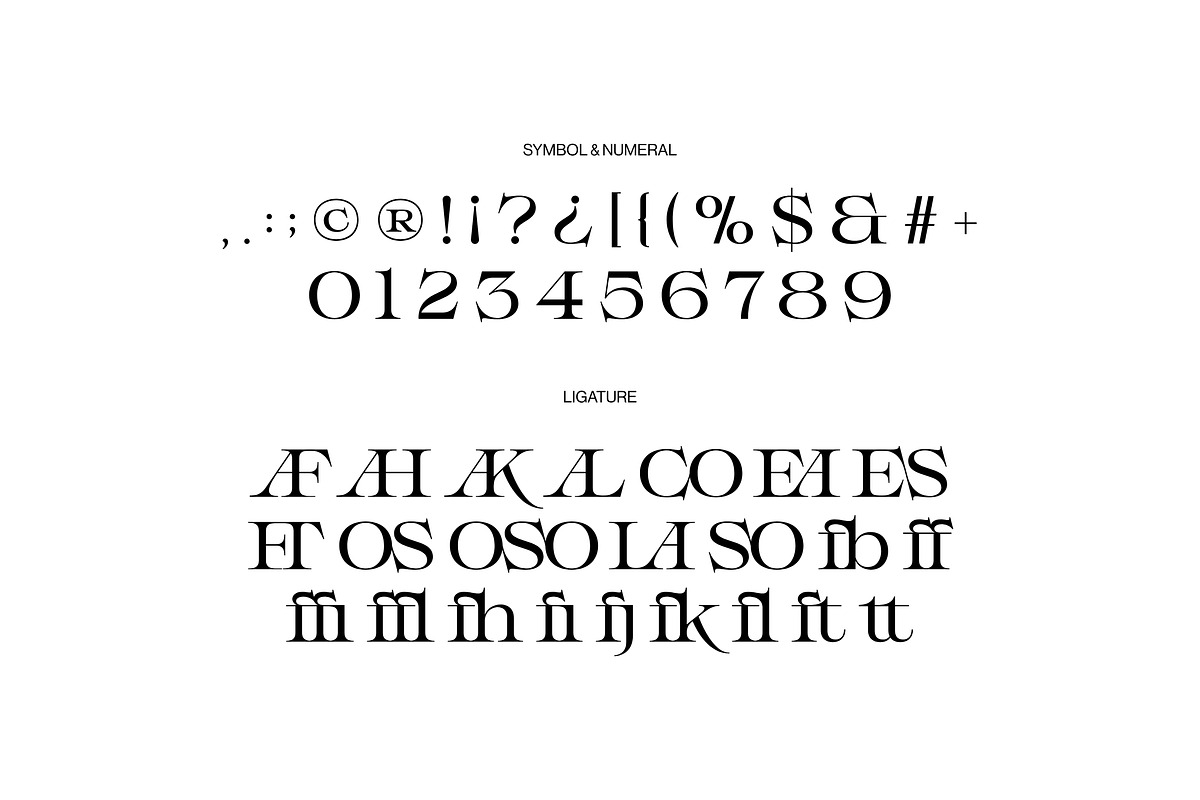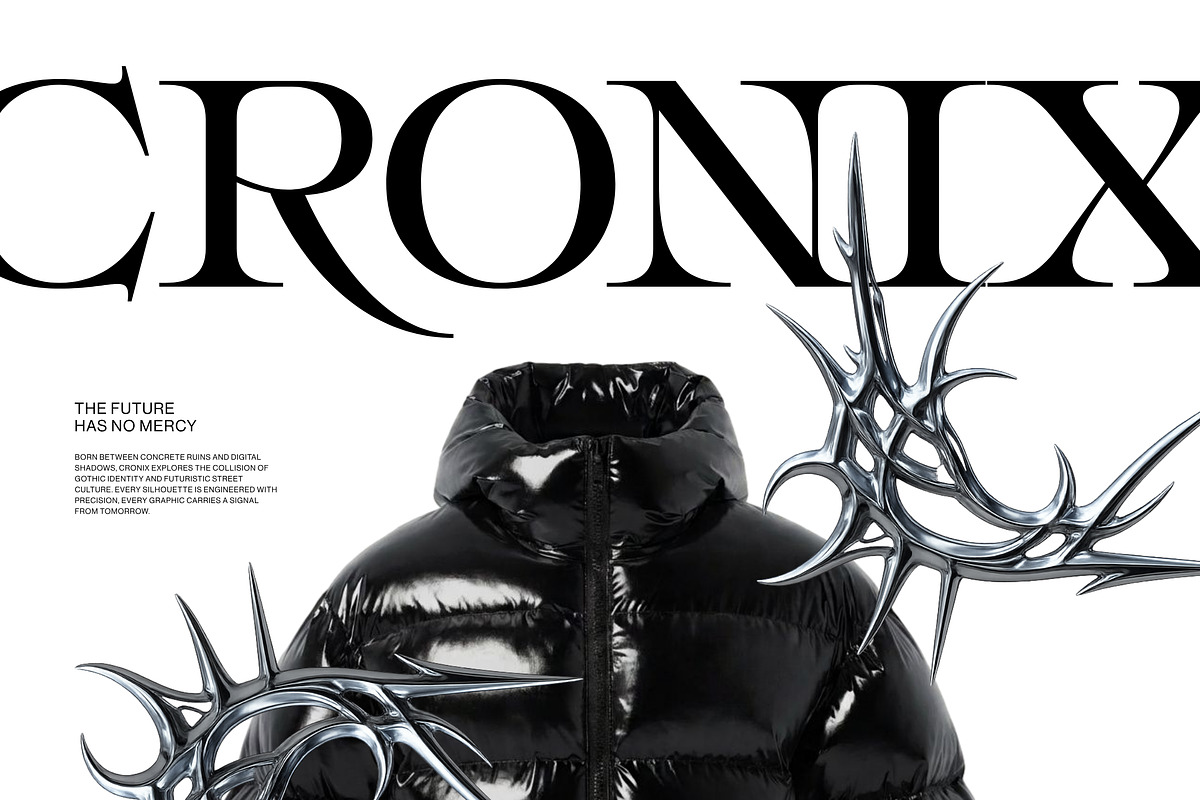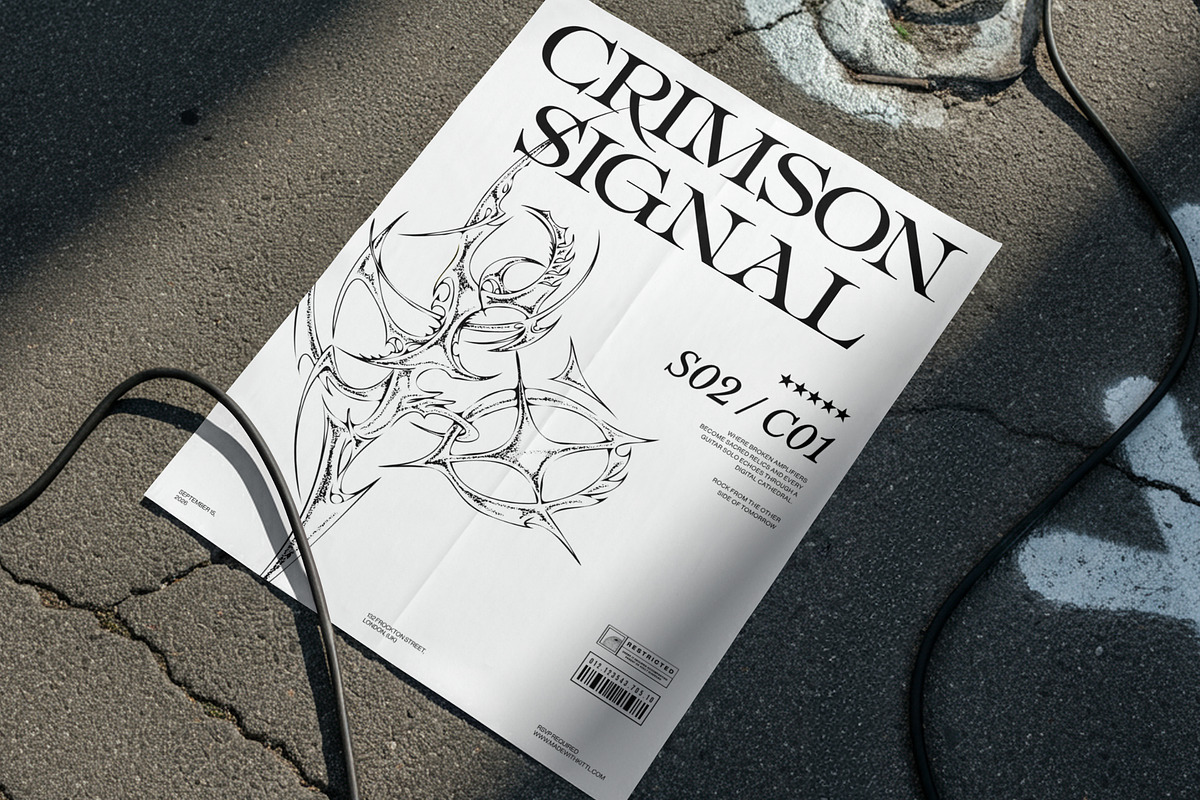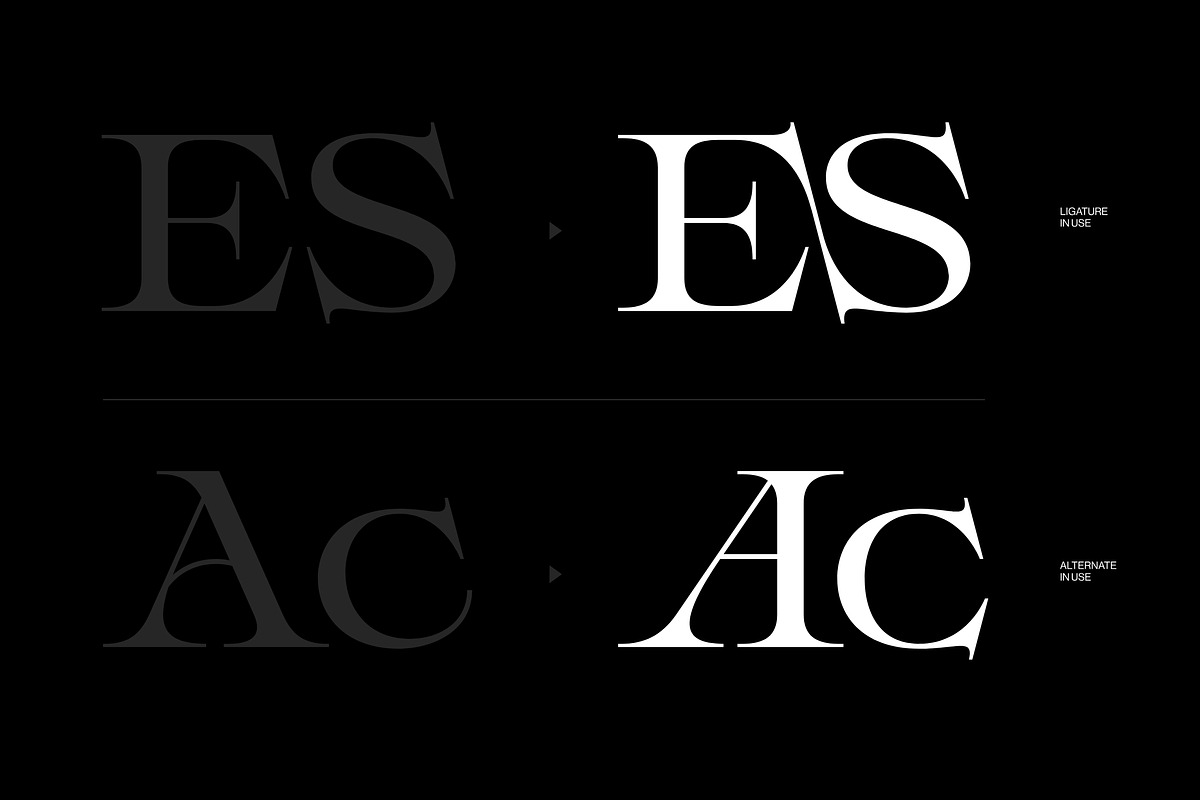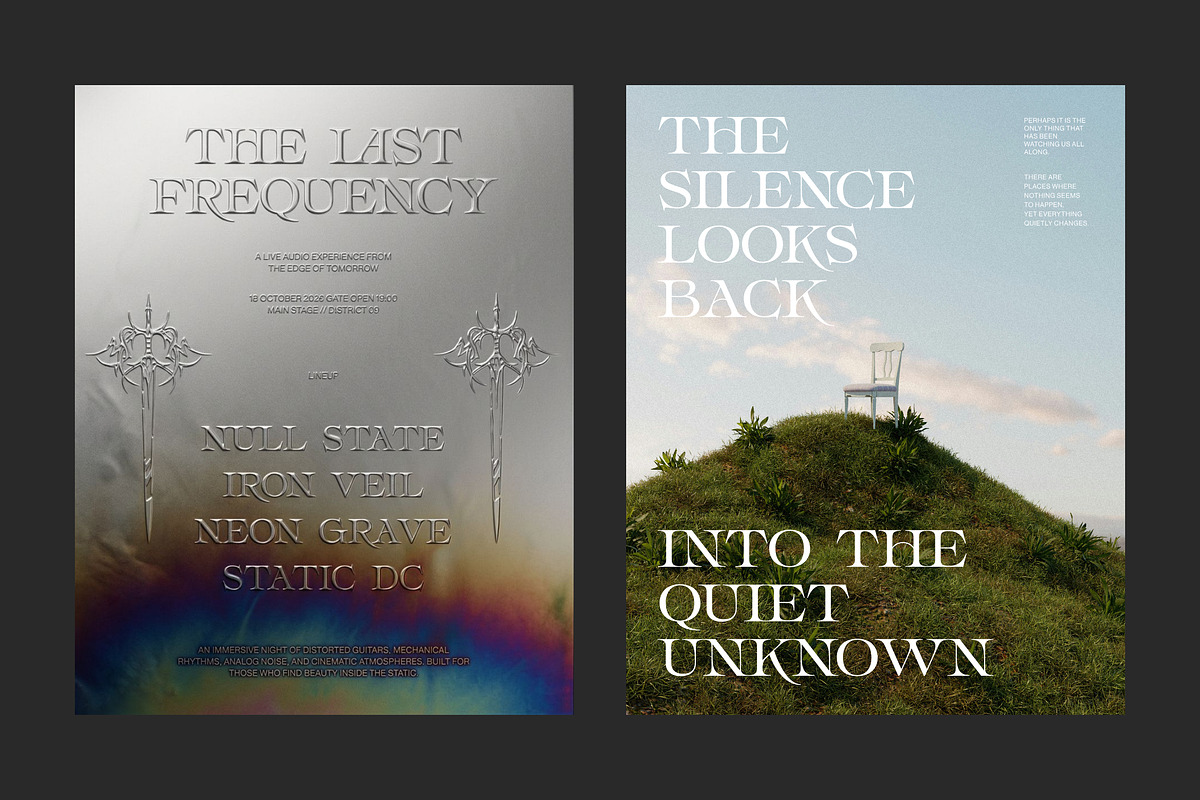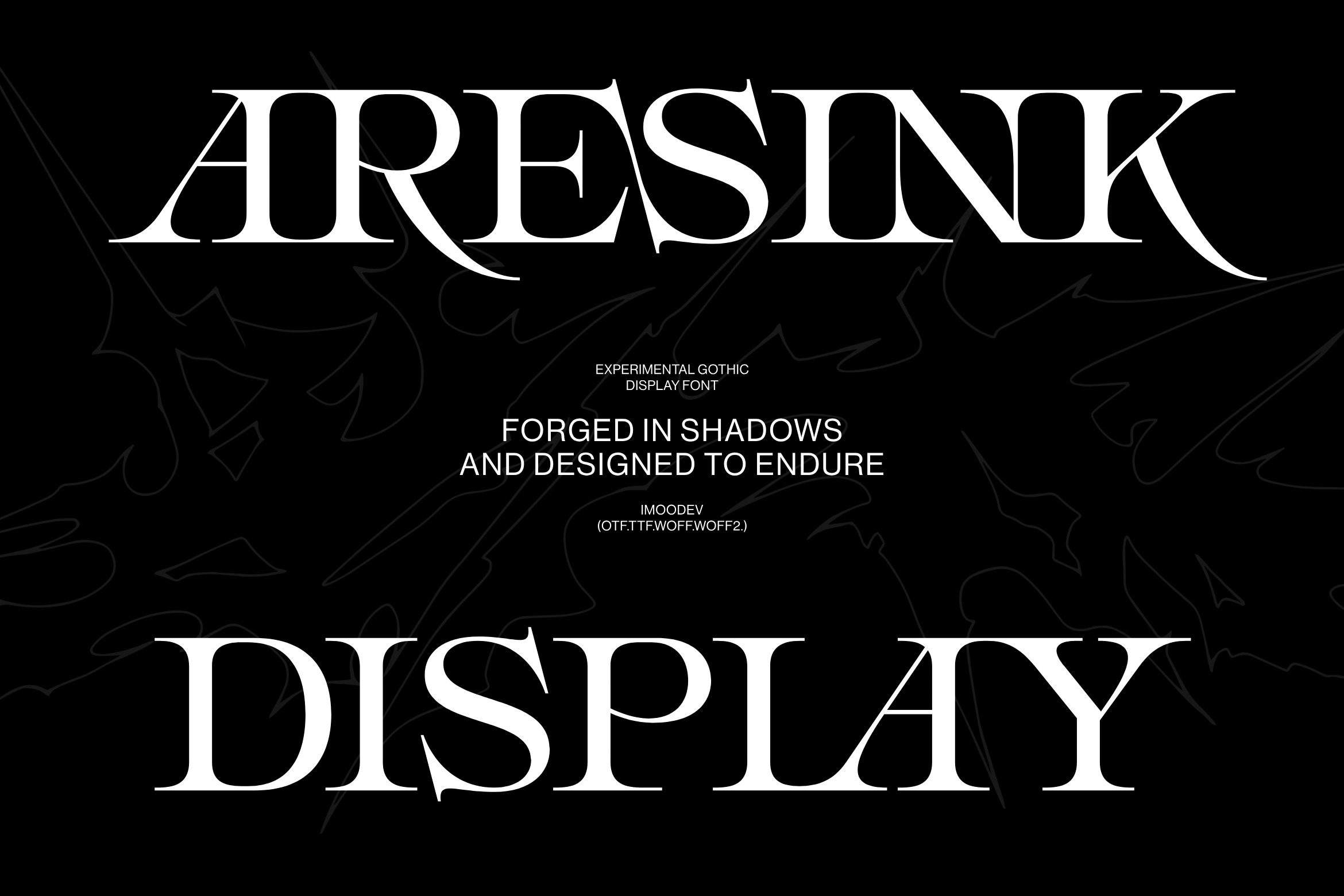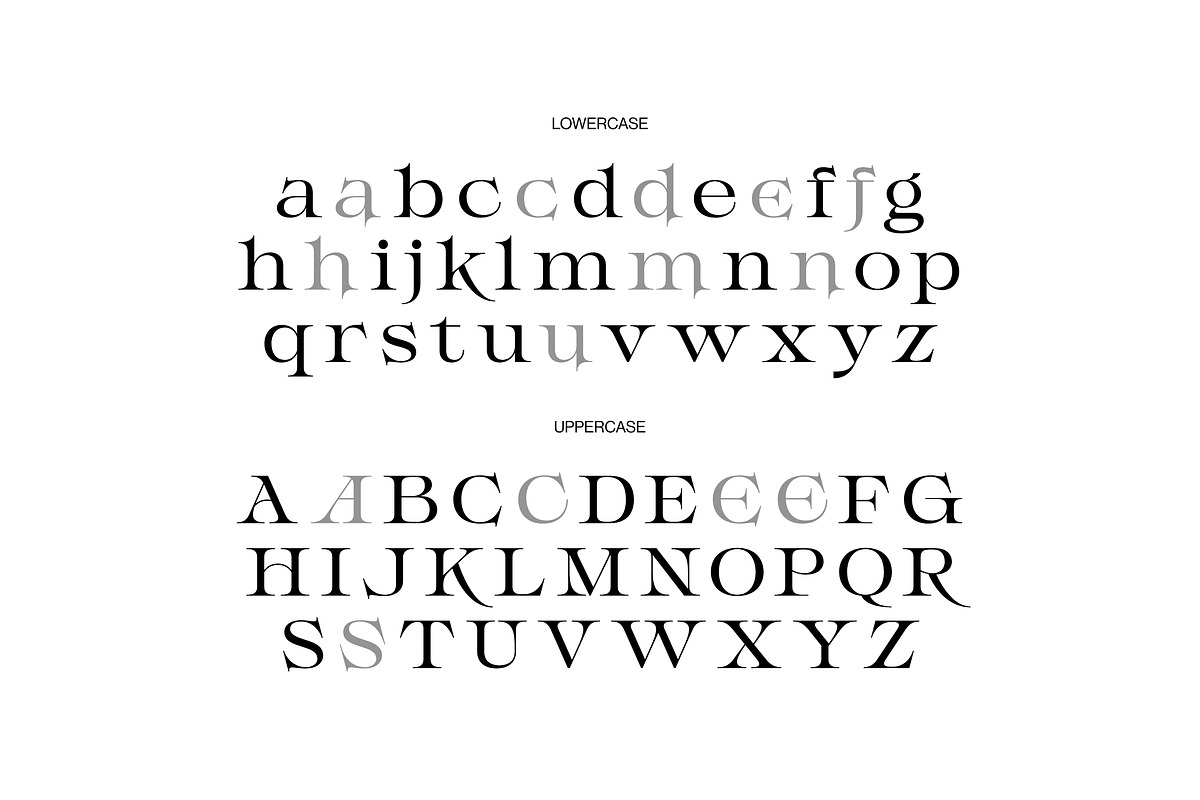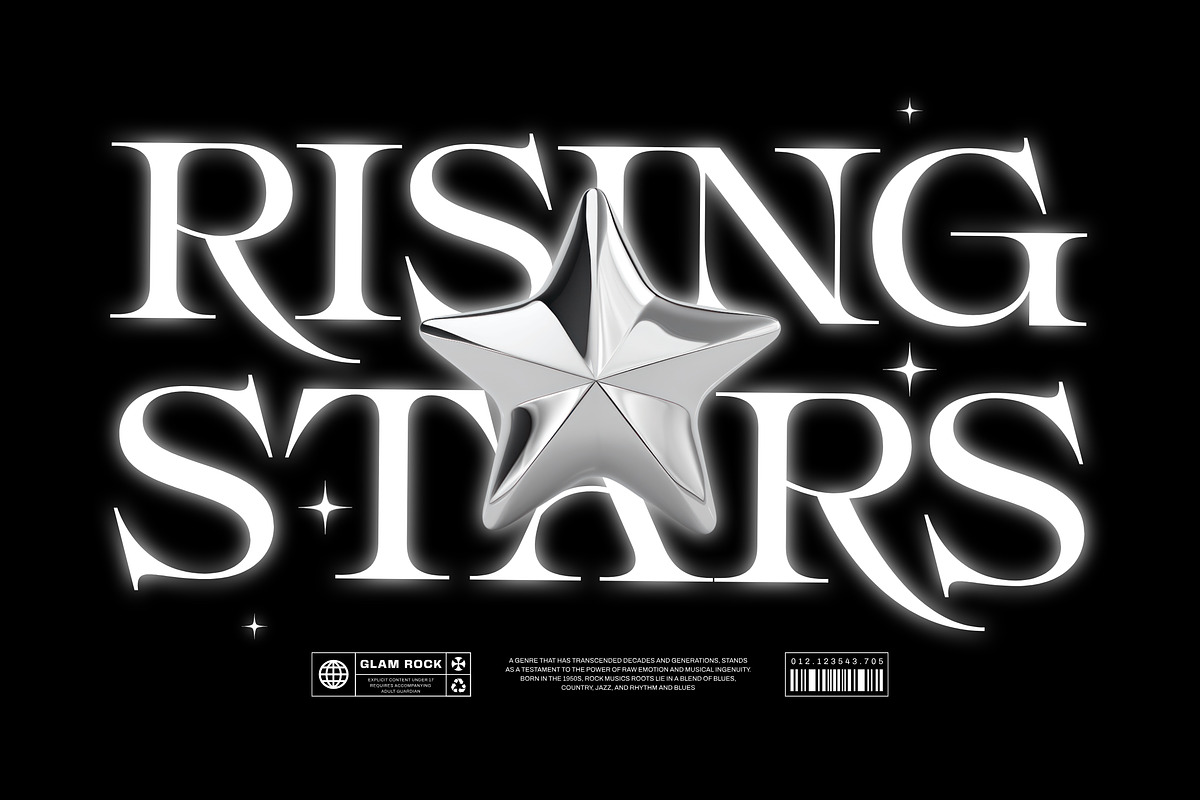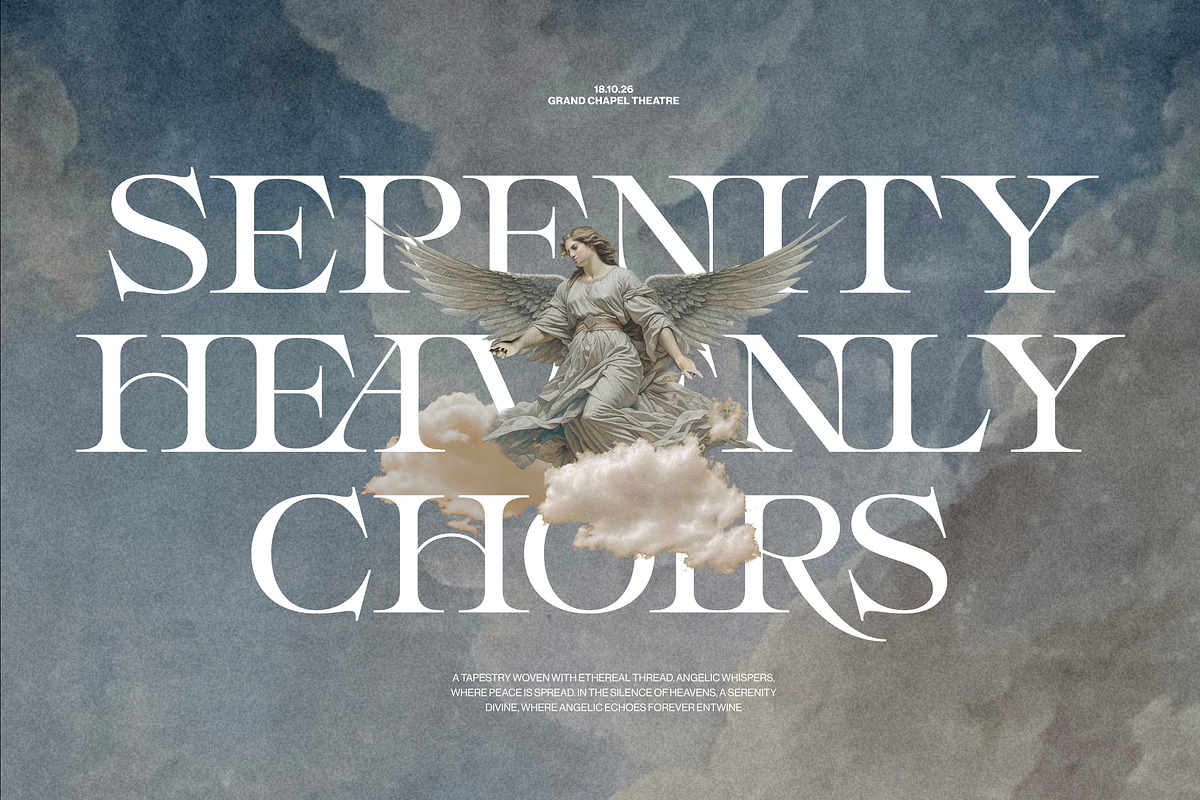
Aresink - Experimental Gothic Font
Aresink is an experimental gothic display typeface built on high contrast serif structures fused with blackletter inspired detailing, thick vertical stems snap into razor thin hairlines and sharply pointed, blade like serifs, giving every letter a forged, almost weaponized edge.
The lowercase set softens slightly but retains the same spurred terminals and calligraphic tension. Aresink font perfect to oversized headline use, logotypes, posters, album art, fashion branding, metal/rock posters, and editorial mastheads.
Uppercase and Lowecase Characters.
Numerals and Punctuations.
Alternates and Ligatures.
Multilingual Support.